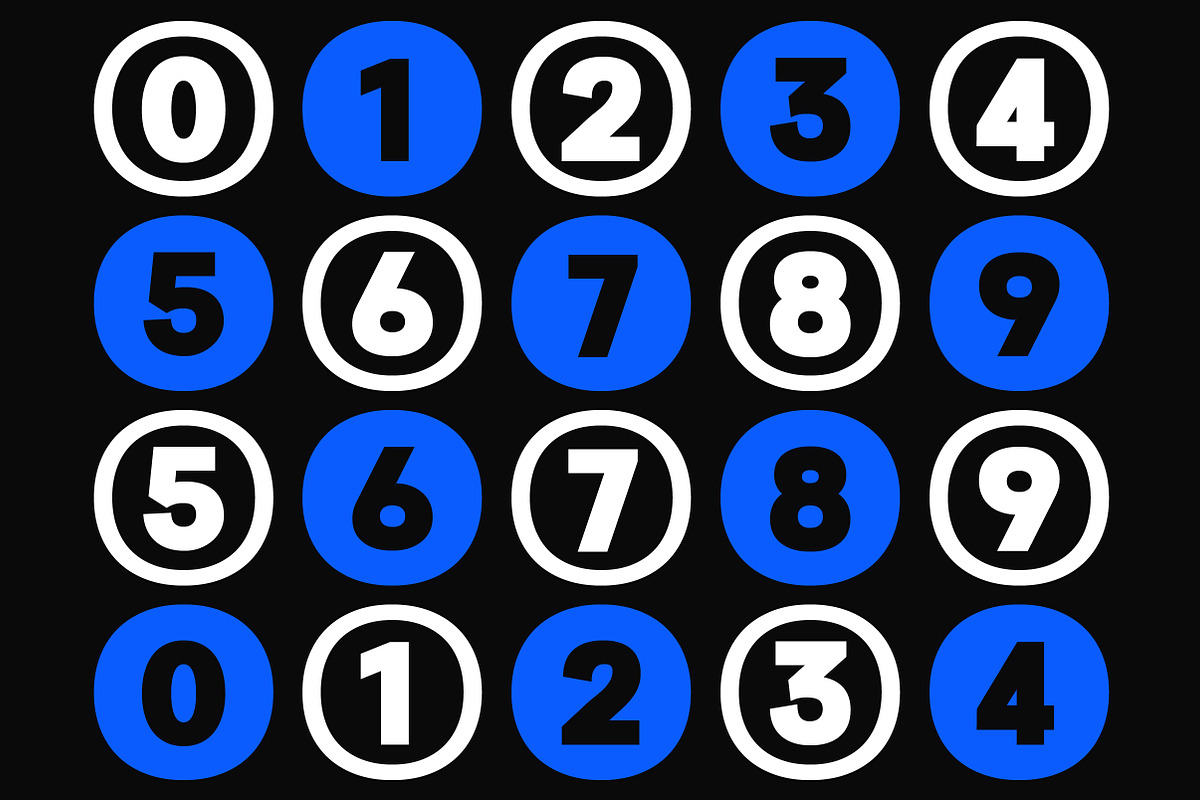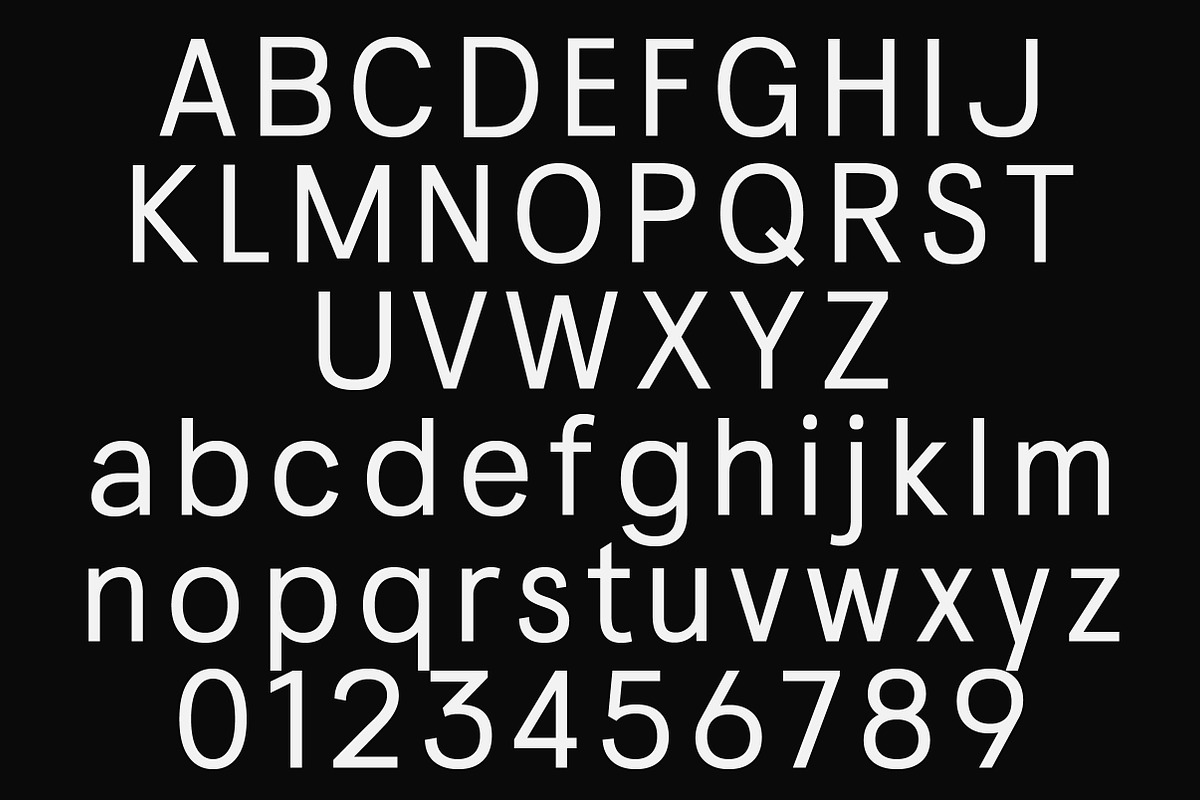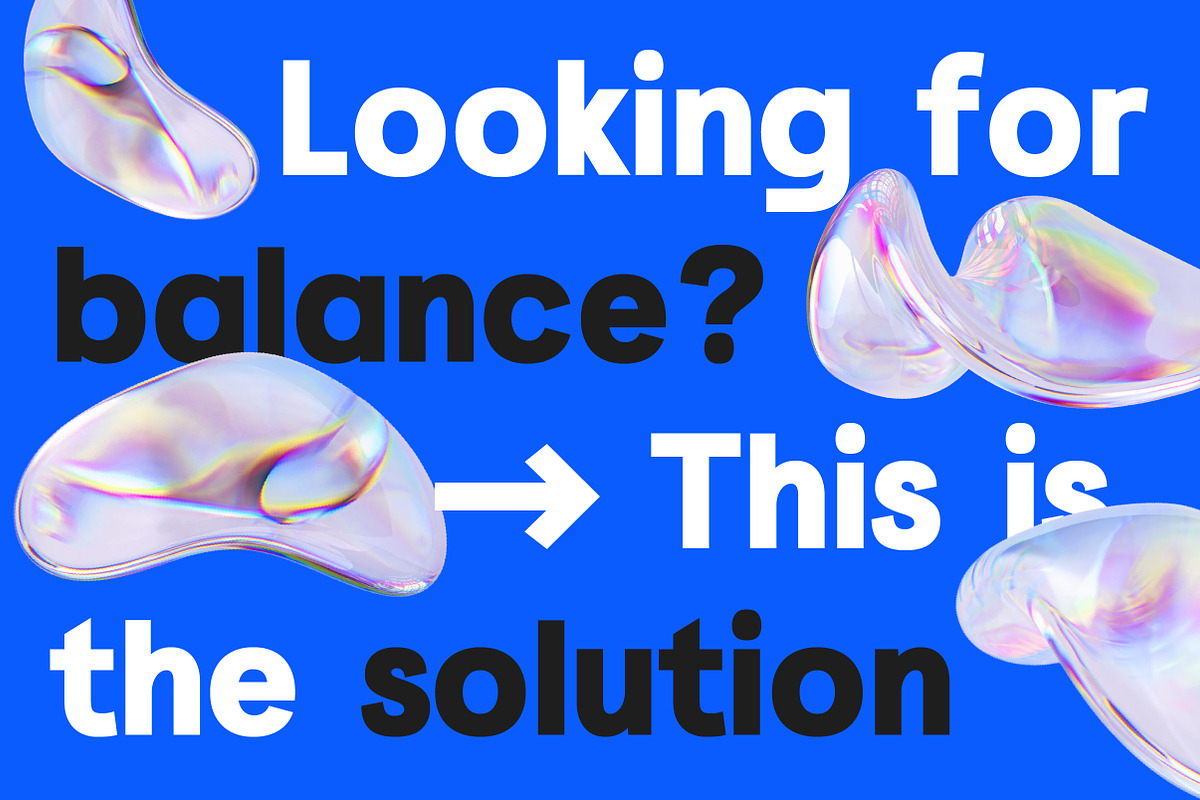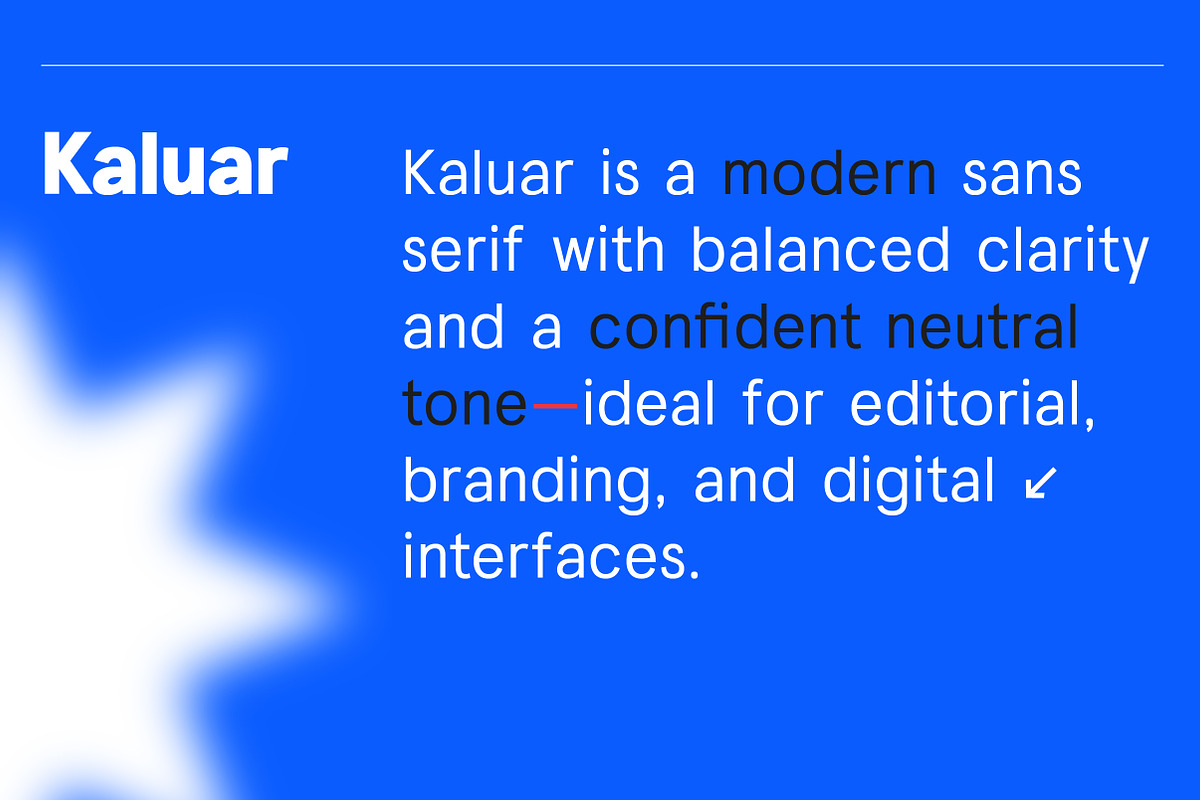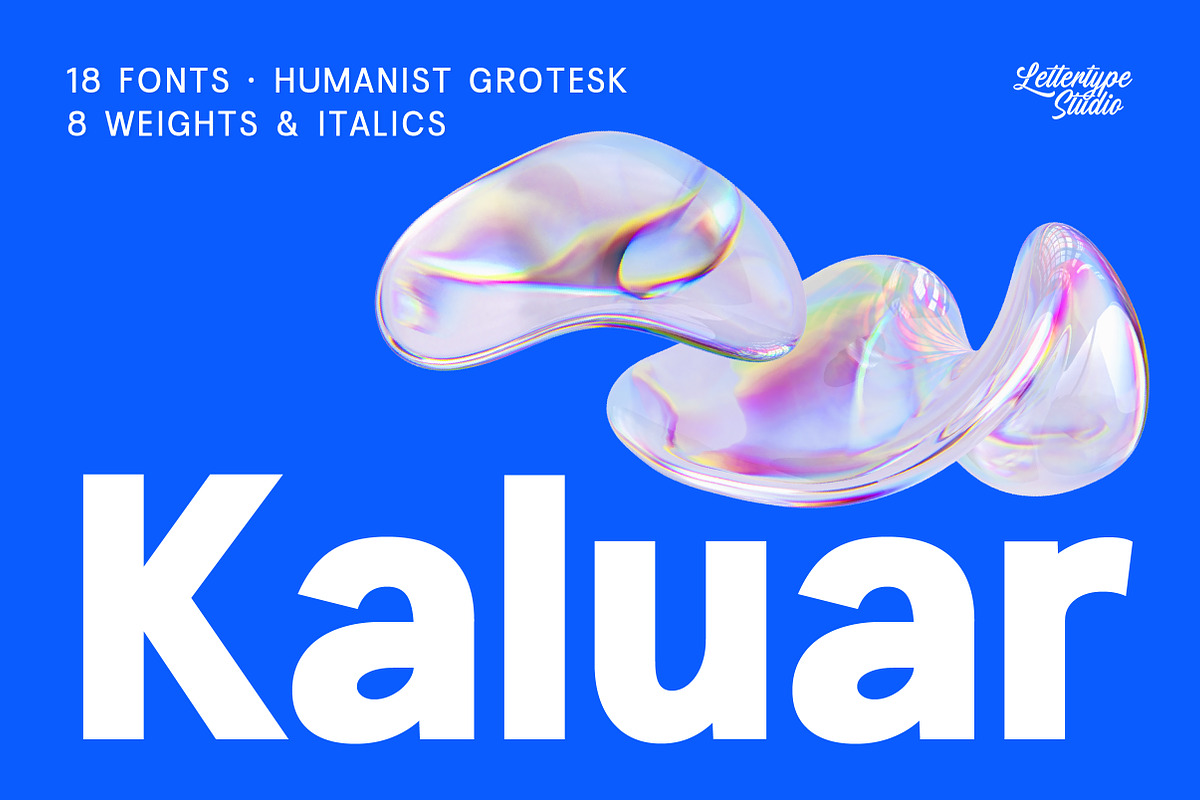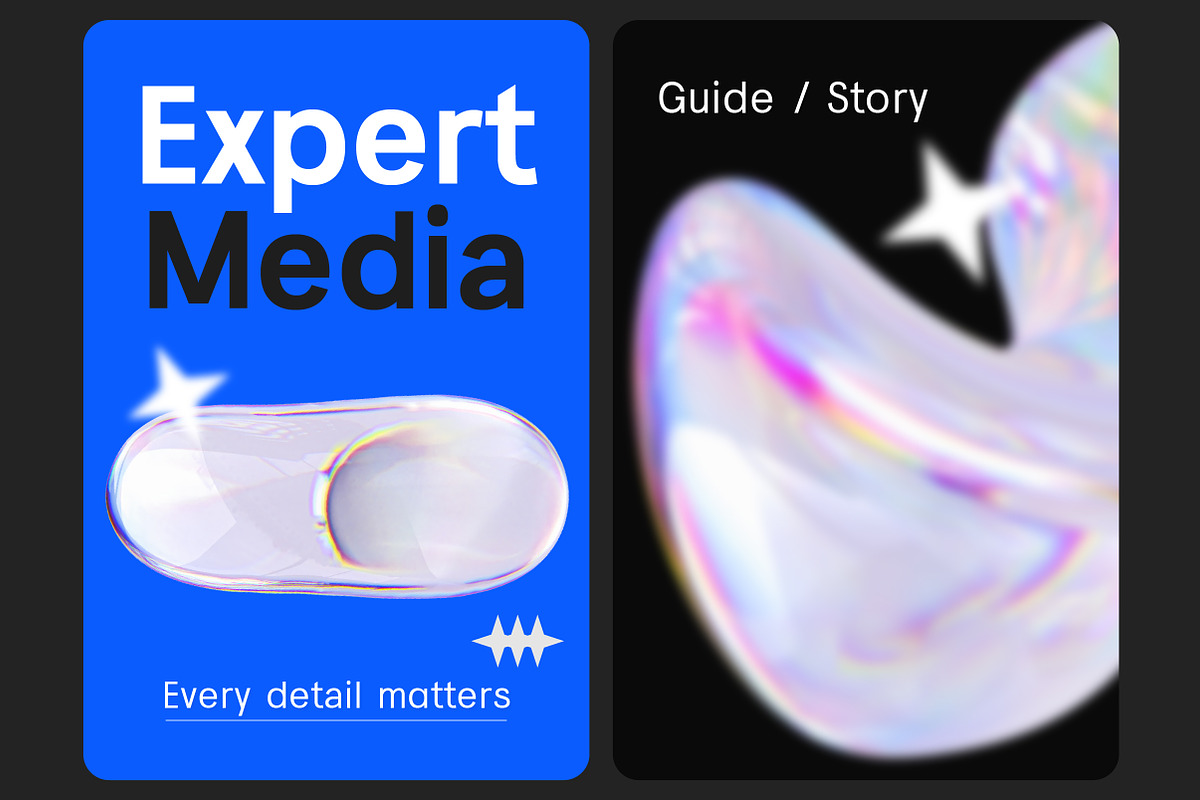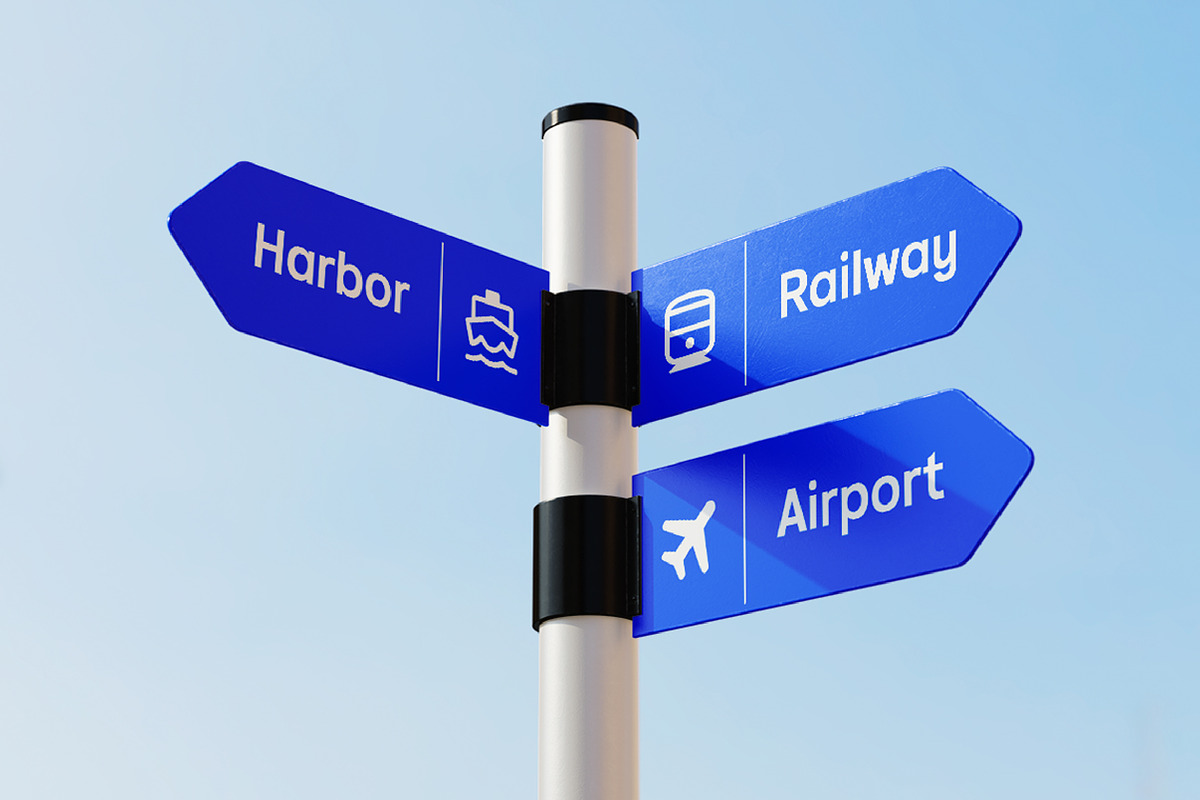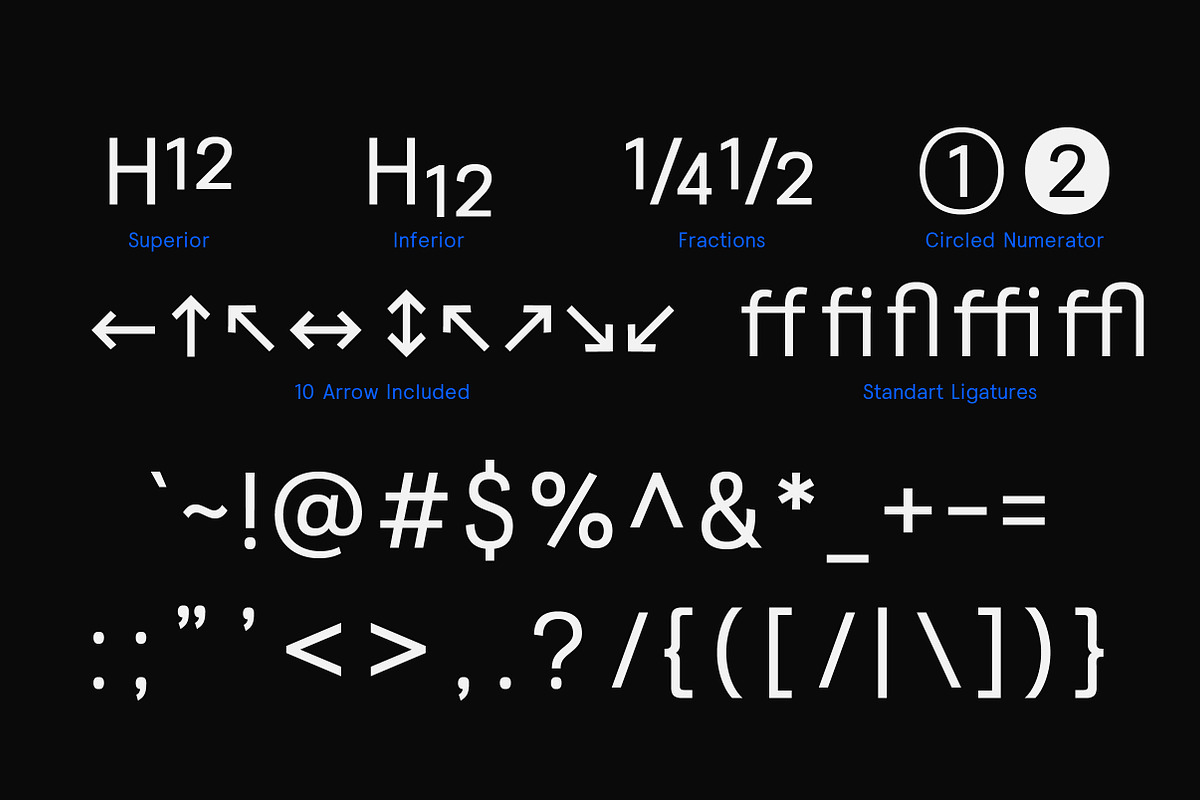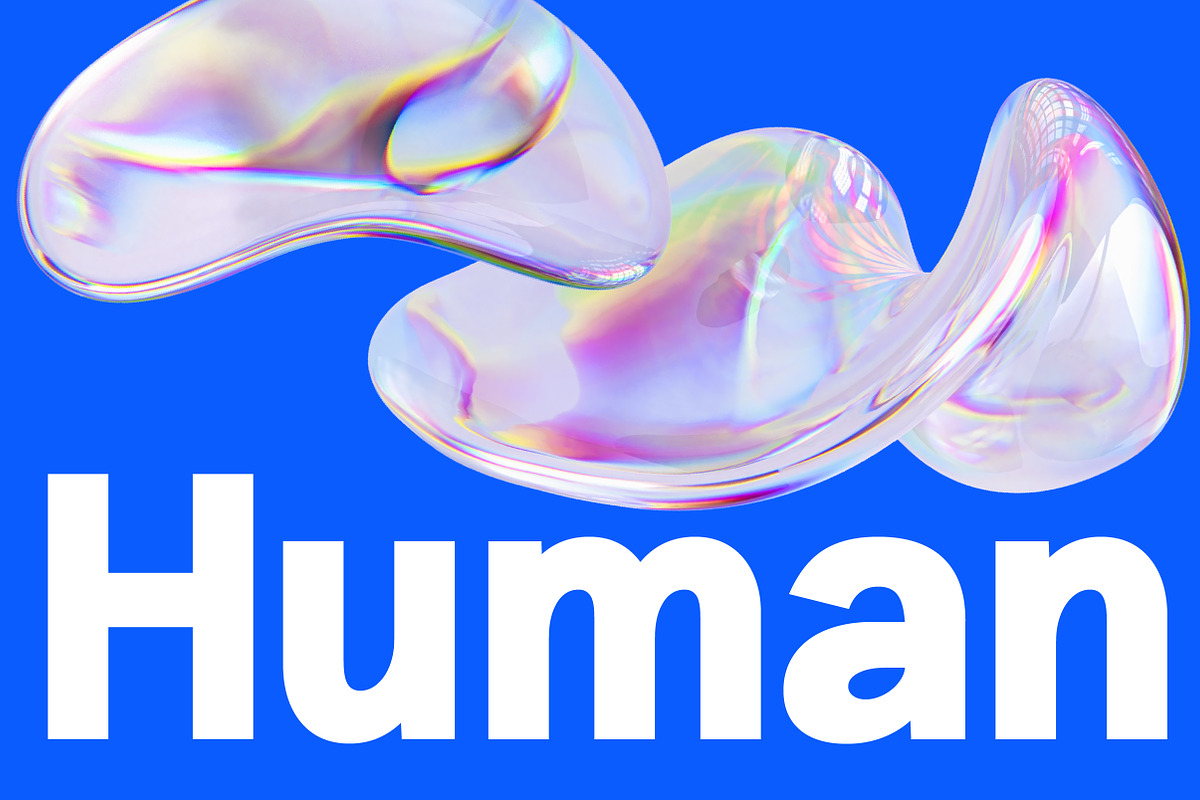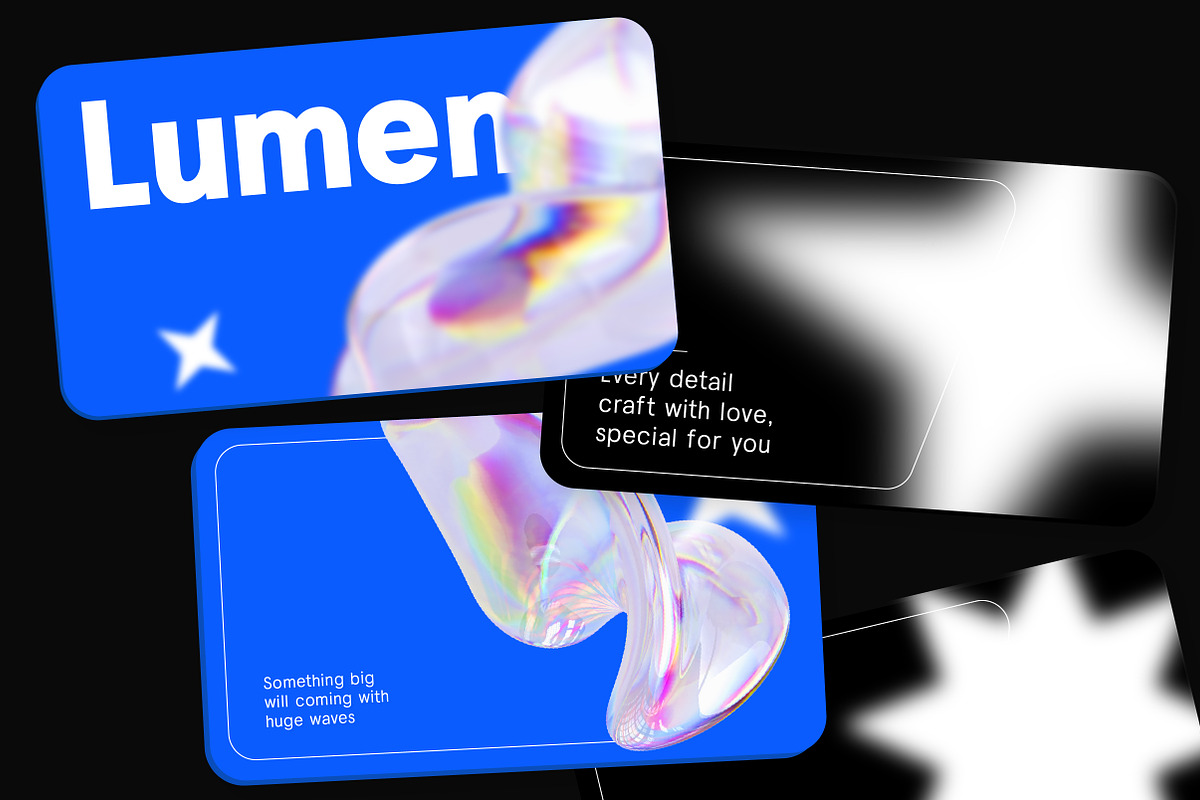
Kaluar is a modern sans-serif typeface designed for clarity, balance, and extended readability. Positioned between humanist warmth and grotesk precision, Kaluar offers a neutral yet confident typographic voice suitable for editorial content, branding systems, and contemporary digital interfaces.
Built as a text-first family, Kaluar maintains consistent rhythm, stable proportions, and comfortable spacing across a wide range of weights. Its restrained construction ensures reliable performance for long-form text, UI layouts, and professional publishing environments.
Kaluar Features:
- 18 Styles
- Upright & Oblique
- Alternates: a, g, y, P & R (ss01) & Extra Currency (฿,₭, ₱, ₸, ₹, ₺, & ₽)
- Extra glyphs: circled numerals ①–⑩ & arrows (← ↑ → ↓ ↔ ↕ ↖ ↗ ↘ ↙)
- 506 Glyphs Total
- 270+ Languages Supports
- Editorial design and long-form reading
- Branding systems and corporate identity
- UI/UX interfaces and digital products
- Web typography and variable font usage
- Professional publications and design systems